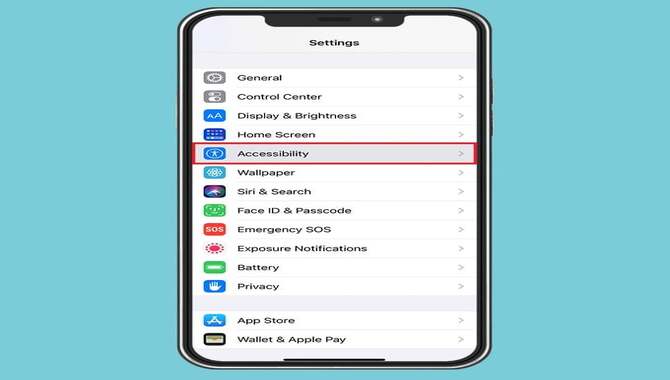
iMessage is an app that allows users to send and receive text messages, photos, and videos. One of the features that sets iMessage apart from other messaging apps is the ability to change the text font.
Users can select from font styles, including bold, italic, and underlined. Users can adjust the font size to make the text larger or smaller. This feature is particularly useful for individuals with difficulty reading small text.
The font feature can also emphasize a message or convey a certain tone. It’s important to note that changing the text font only affects the appearance of the message on the sender’s device and not on the recipient’s device.
Checking Imessage Text Font In 7 Steps
It is tricky to ensure that iMessage text is readable on both the sender’s and the recipient’s devices. This is because iMessage uses various fonts and styles depending on the device and operating system, and it can be difficult to match the font type perfectly across devices.
One way to ensure that iMessage text is readable on both devices is to use universal fonts, such as Helvetica, Arial, and Times Roman. However, this may not be the ideal solution, as universal fonts may not be available on all devices or may not be the preferred font type for some recipients.
Another option is to use a font compatible with the device and operating system, such as Times New Roman or Calibri, and to adjust the font size and boldness to make the text more readable.
1. Open The Imessage App
The iMessage app, developed by Apple, does not allow users to change the text font. The default font in iMessage is consistent across all devices and cannot be modified within the app’s settings. However, users can use different formatting options like bold, italics, and underline to emphasize their messages.
2. Start A Conversation
You can use a third-party keyboard app that offers custom font options to start a conversation in iMessage with a different text font. Install a font keyboard app from the App Store, enable it in your device’s settings, and then open iMessage. Tap on the text input field, switch to the font keyboard, and begin typing with your preferred font.
3. Enter Text
The iMessage text font can be customized to reflect your personal style and preferences. It offers a variety of font options, including bold, italic, and underlined. Additionally, you can change the font size to make your messages more prominent or subtle. These font choices allow you to express yourself creatively and enhance the visual appeal of your iMessage conversations.
4. Observe The Text Appearance
In iMessage, you can observe the text appearance and font by opening a conversation and looking at the messages exchanged. The default font is usually the system font on your device, but you can change it by adjusting your device’s settings. Remember that the font appearance may vary depending on the recipient’s device and settings.
5. Check System Settings
To check the system settings for iMessage text font on your device, go to the “Settings” app, tap on “Display & Brightness,” and then select “Text Size.” You can adjust the font size for iMessage and other apps from there. Remember that iMessage has no separate font customization option; it uses the system’s default font settings.
6. Access Display & Brightness Or Accessibility Settings
In the Display & Brightness or Accessibility settings of iMessage, you can customize the text font for a better user experience. These settings allow you to adjust the font size, style, and contrast to suit your preferences. By enhancing the readability and visibility of text, you can enjoy a more accessible and personalized messaging experience on your Apple device.
7. Confirm The Font
The default font in iMessage for text messages is “San Francisco.” It is a modern, clean, legible font designed specifically for Apple devices. However, users can customize the font in iMessage by adjusting their device’s display settings or using third-party apps offering additional font options.
Sharing Your Custom Text Styles
Sharing your custom text styles is a great way to save time and maintain consistency across your projects. Custom text styles, also known as typography presets, allow you to create and save specific font types, sizes, colors, and other formatting options throughout your designs. By sharing these presets with others, you can ensure that everyone uses the same styles, making your workflow much easier.
There are several ways to share your custom text styles. One option is to export the styles as a file and then import them into another program or project. Another option is to share your styles via a cloud-based service like Dropbox or Google Drive. This way, your colleagues or clients can access your text styles from anywhere and use them in their projects.
iMessage text font may seem like a small detail, but it can significantly affect how your message is perceived. From bold to italic and even underlining, you now better understand how to use different text styles to emphasize your words and make your messages stand out.
3.Can I Download Or Install New Fonts For Imessage?
Ans: A: No, iMessage does not support installing or downloading new fonts. You are limited to the default font.
4.Can I Use Different Fonts When Sending Imessages To Non-Iphone Users?
Ans: A: No, the font used in iMessage is universal and does not change when sending messages to non-iPhone users.
5.Can I Copy And Paste Text With A Different Font Into Imessage?
Ans: A: No, the font formatting does not transfer when copying and pasting text into iMessage. It will adopt the default font.